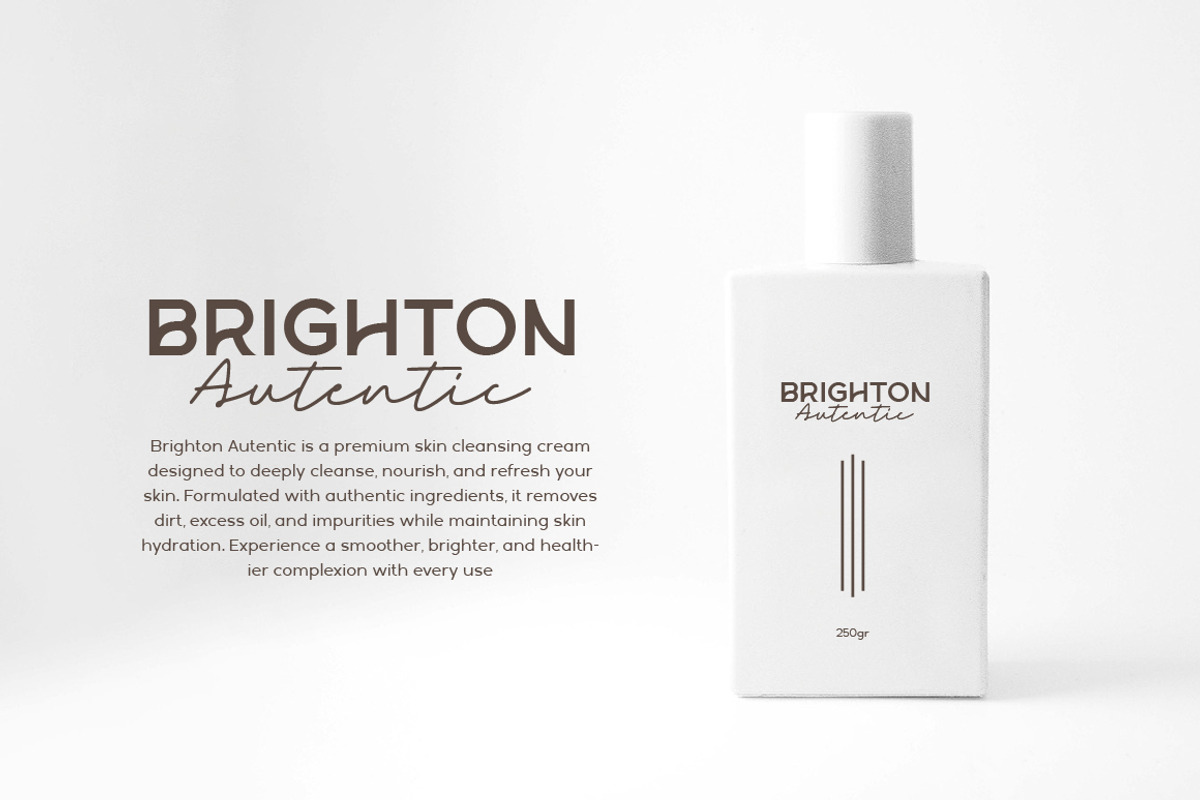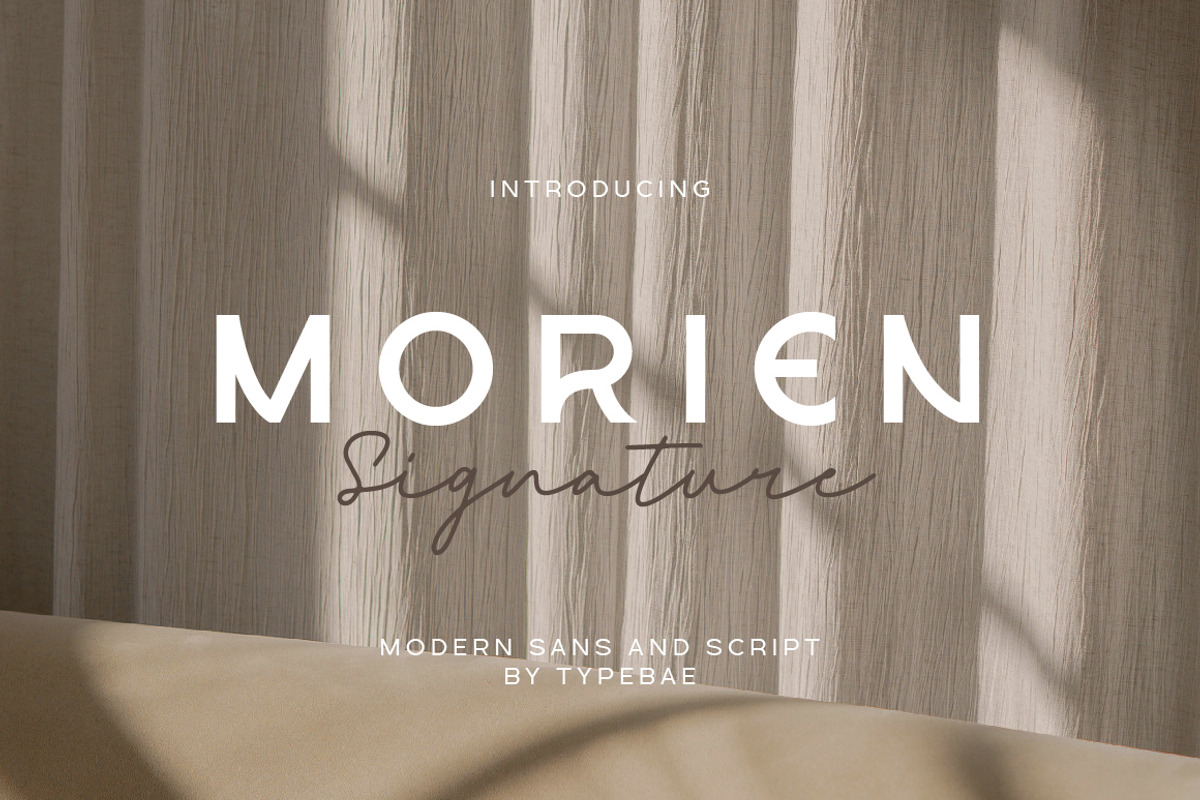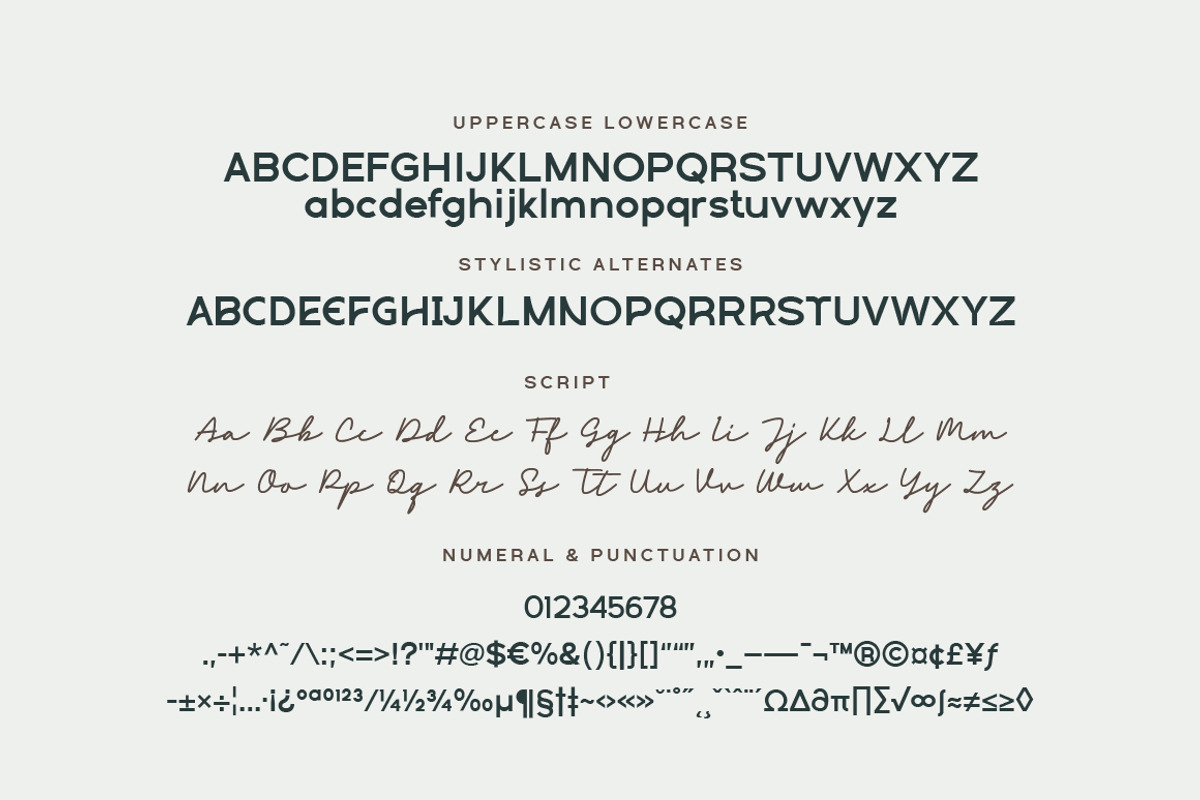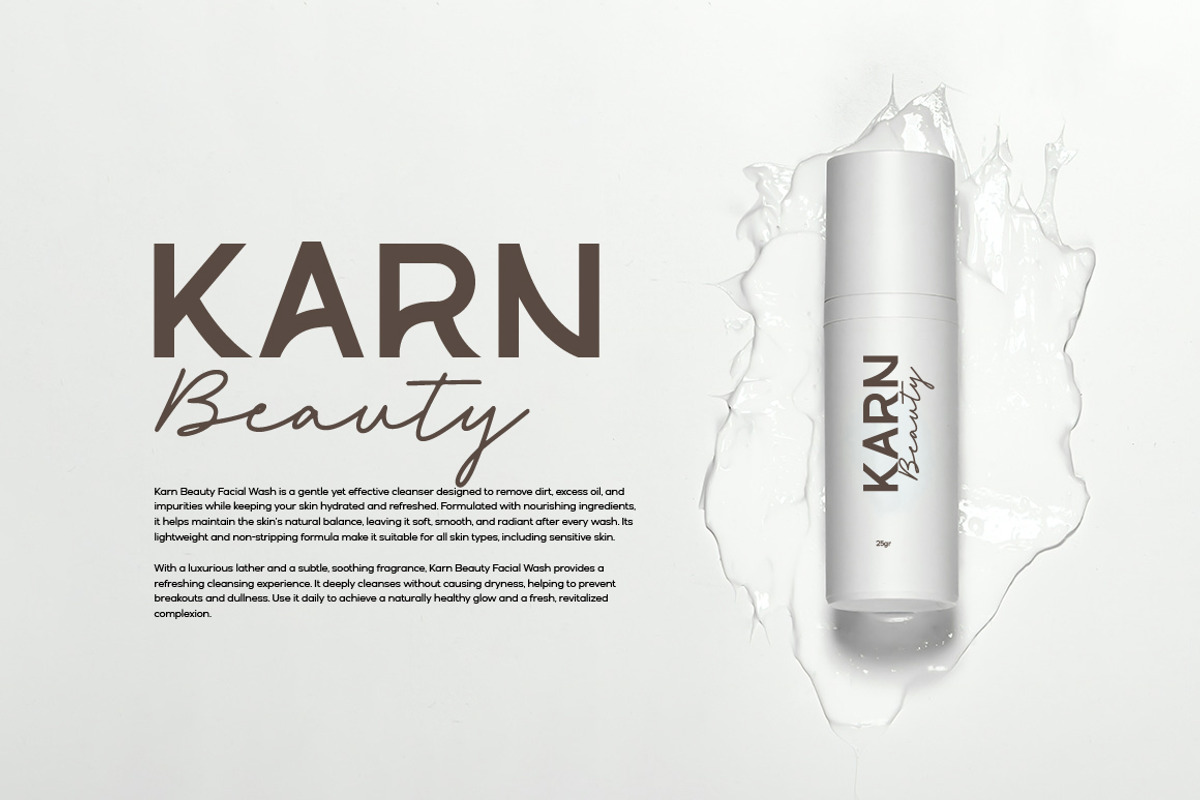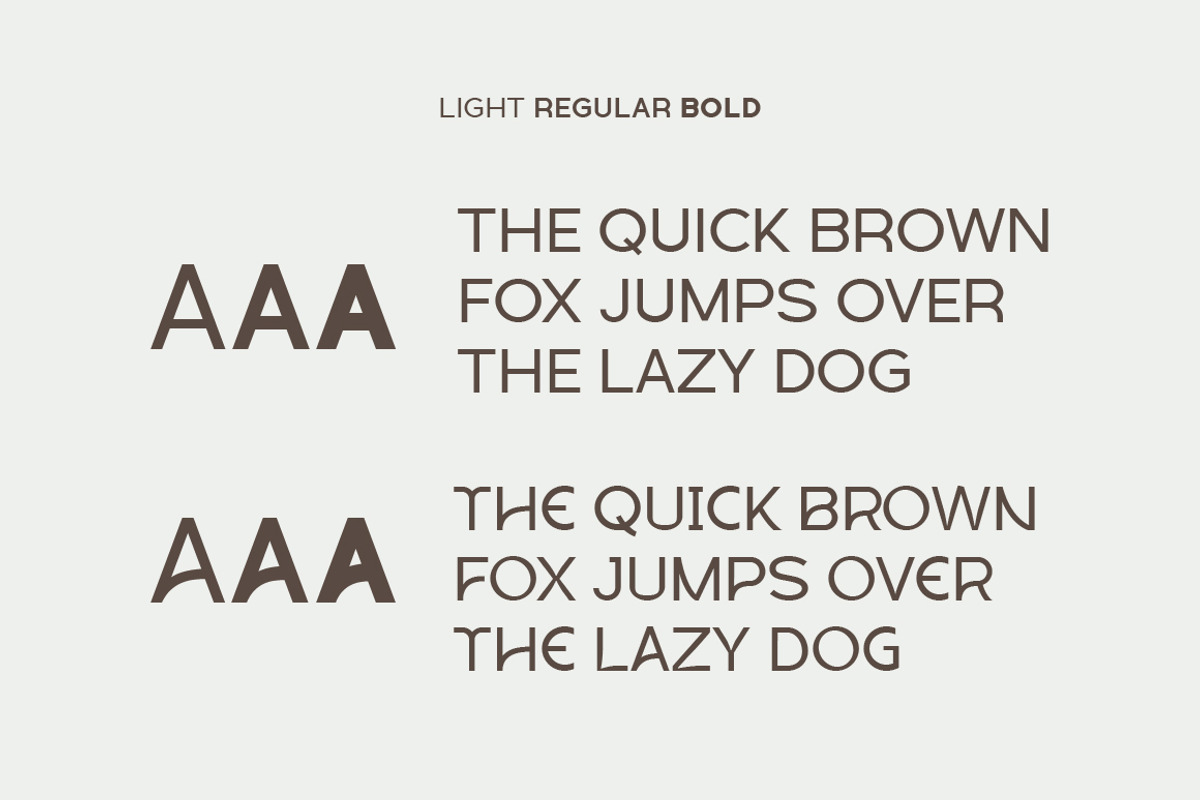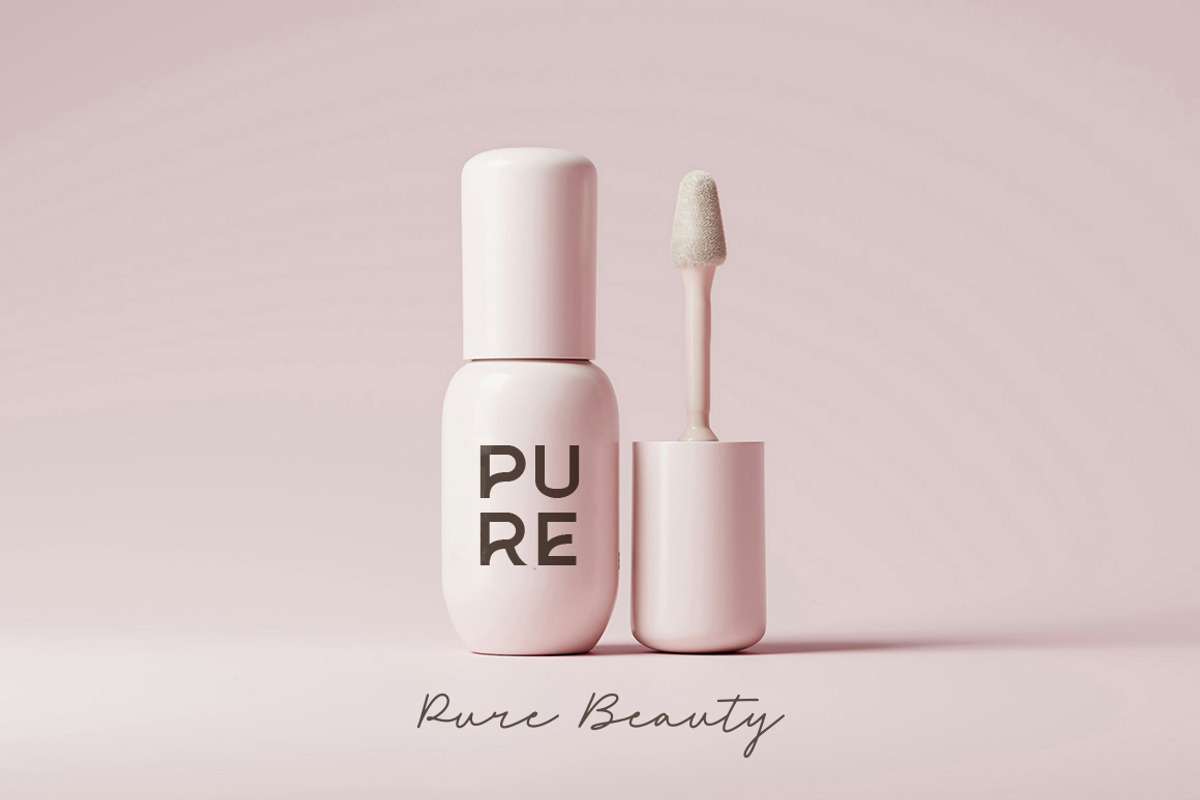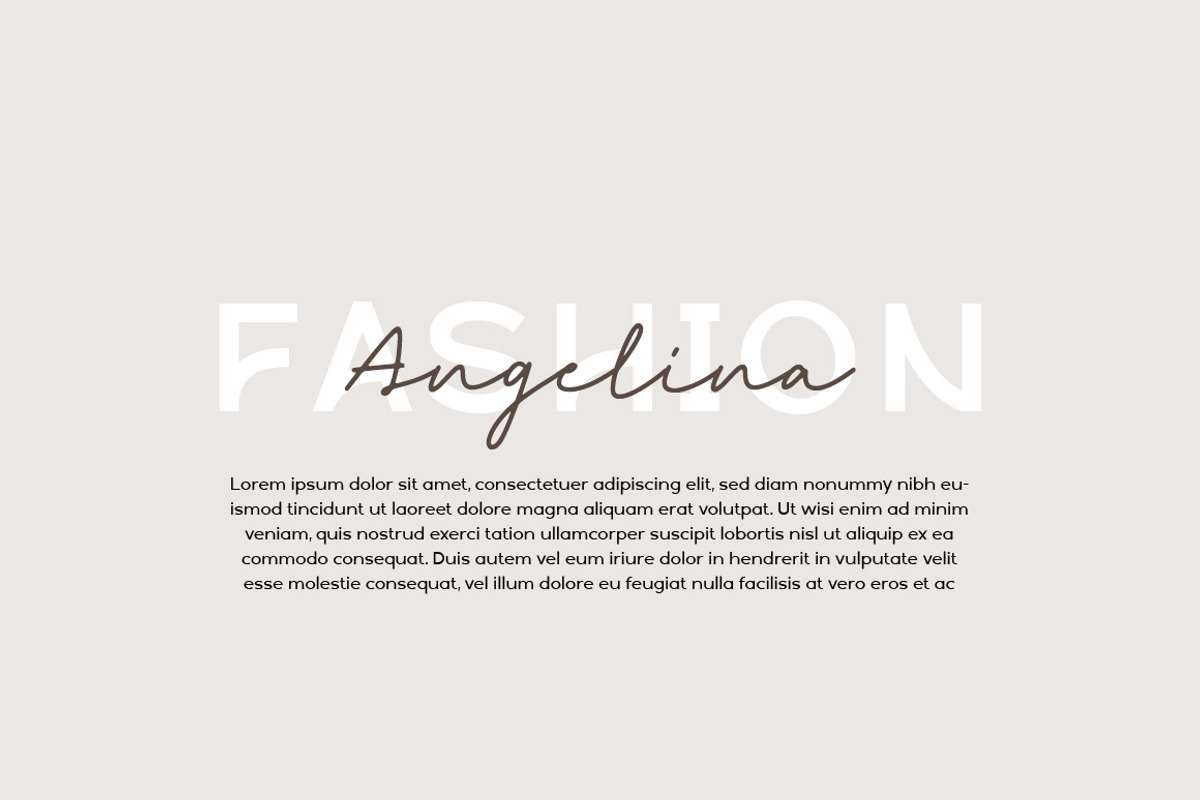
Morien - Modern Font Duo
Morien is a modern sans-serif and handwritten script font with 30 stylish alternates, perfect for creating elegant and professional designs. The alternates blend seamlessly with the main characters, making it ideal for logo, branding, invitations, packaging, and more.
- 30 Stylistic Alternates
- Numbers, Punctuation & Symbols